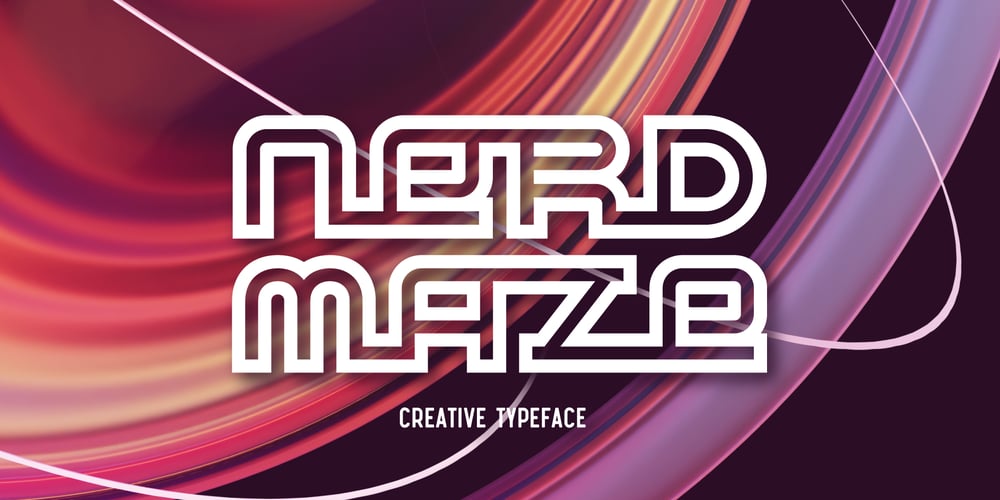
Nerd Maze
Nerd Maze font
Nerd Maze Font Family was designed by Gleb Guralnyk and published by Gleb Guralnyk. Nerd Maze contains 1 styles and family package options. Hello! Introducing a trendy geometric typeface – Nerd Maze. It’s an original modern and simultaneously simple font. Several letters variations, using OpenType feature (contextual alternates) automatically creates a seamless words shape.Note: Make sure that “Contextual Alternates” feature is supported & enabled in your software. Please consider that this feature is available only for English alphabet.Thank you and wish you a peaceful sky!